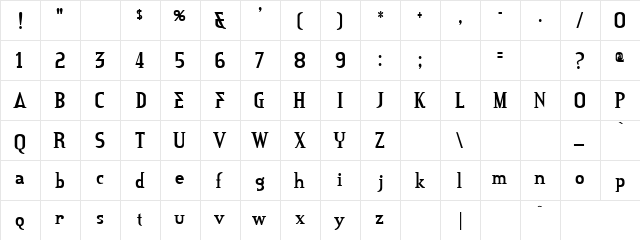
Creemtreat Regular
Design Context for Creemtreat Typeface
Creemtreat is a composed and adaptable typeface that performs quietly and consistently across a wide range of design contexts.